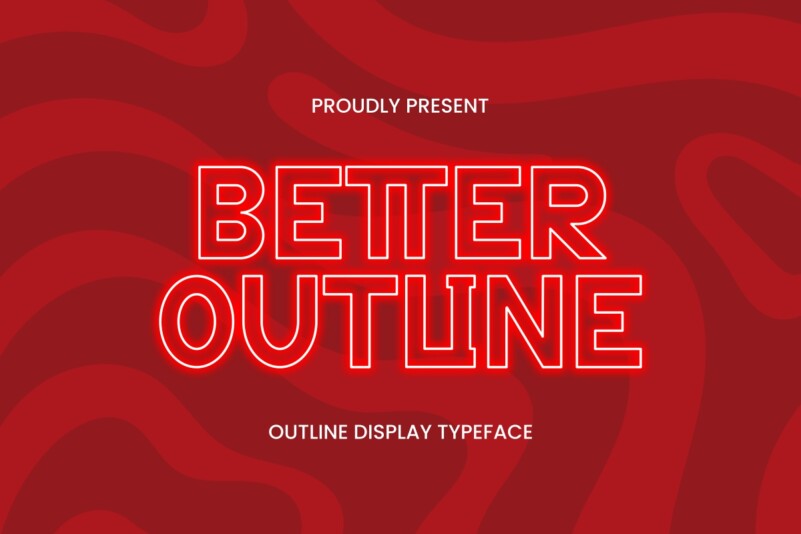
Better Outline Font
Better Outline Font – A display font created in an outline style makes for a modern and professional look. with a thin line style as an outline. This font is great for wall decoration, printing, quotes, branding, logotype, decorative lighting, branding, business, cricut and many other creative ideas.